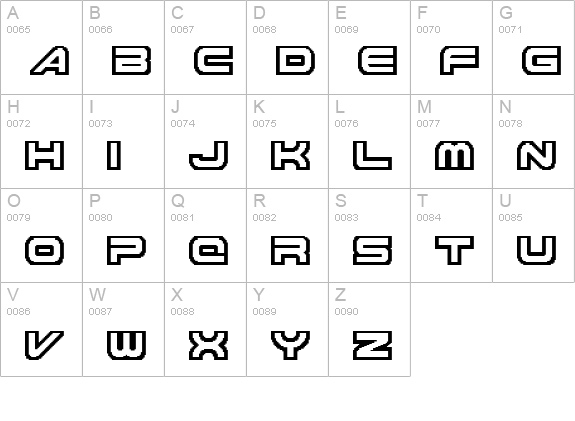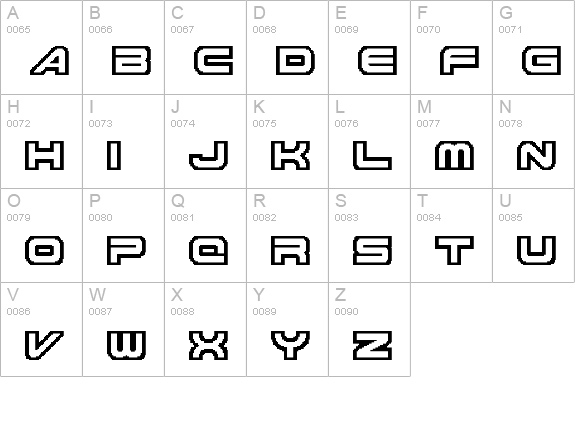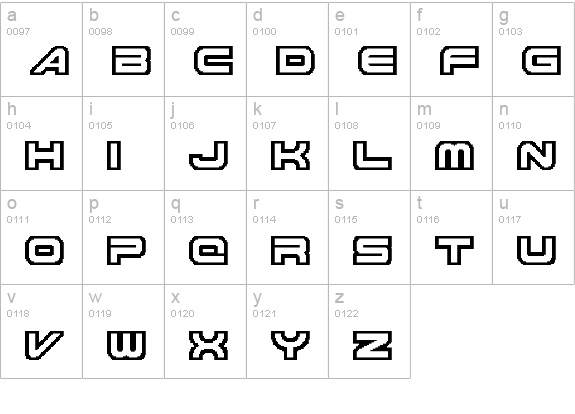
Knighthawks Font Details
The Knighthawks font is a remarkable display typeface that exudes elegance, sophistication, and a touch of mystique. With its sharp edges and dramatic curves, this font captures the spirit of a noble knight ready to embark on a courageous quest. Each letter is crafted with precision and attention to detail, making it a true work of art. This font is perfect for creating captivating headlines, eye-catching logos, and stylish invitations. Its versatility allows it to be used in various design projects, from branding and packaging to posters and social media graphics. Whether you're designing for a medieval-themed event or simply want to add a touch of regality to your work, Knighthawks is the perfect choice. What's even better is that Knighthawks is freely available to download at FontsMarket.com. This means that you can easily access this stunning font without any cost, making it a valuable addition to your design arsenal. With just a few clicks, you can enhance your projects with the timeless beauty of Knighthawks. Don't miss out on this opportunity to elevate your designs with a font that exudes power and grace. Download Knighthawks today and let your creativity soar to new heights. Please note that while Knighthawks is available for free, it is essential to respect the font's licensing terms and conditions, as outlined by FontsMarket.com.